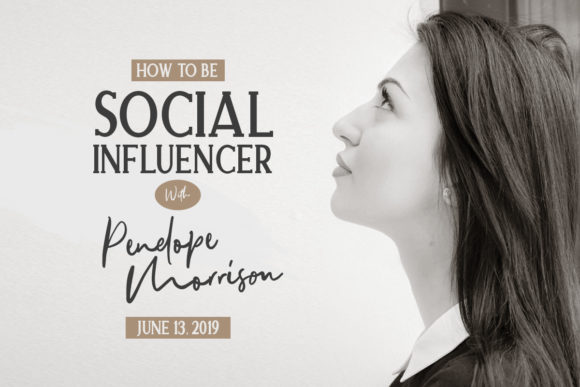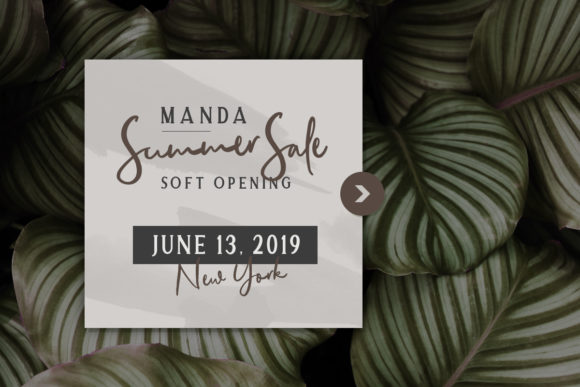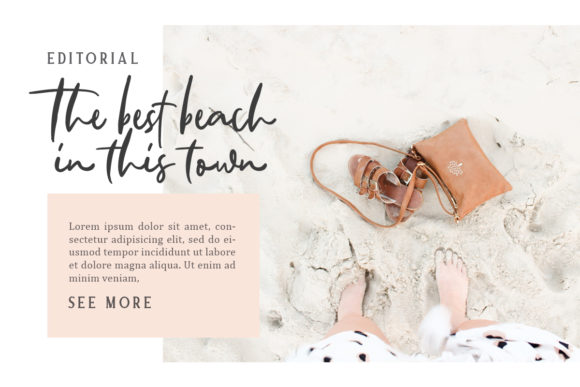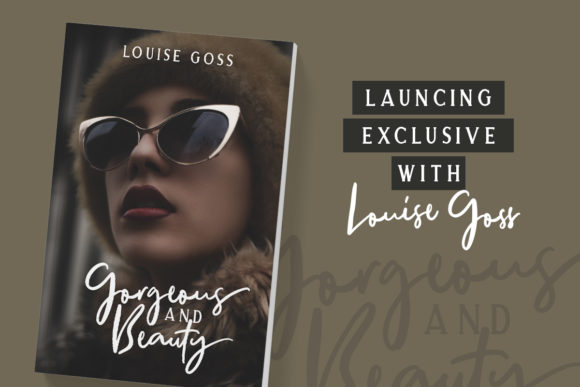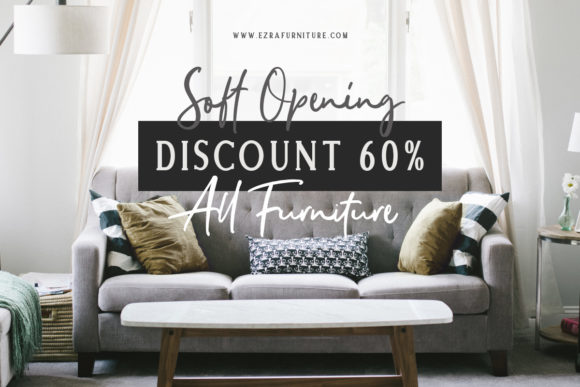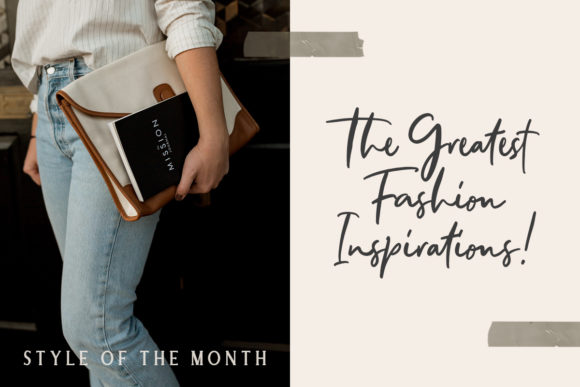
The Perfect Pair: Unleashing the Beauty of the Allison Style Duo Font
There’s something magical about stumbling upon the perfect combination of fonts. You’re working on a project, and suddenly, the words flow effortlessly, the message is conveyed with clarity, and the overall design comes together in harmony. It’s a moment every designer knows and loves. For those seeking this perfect pair, the Allison Style Duo Font is an absolute gem.
This stunning font duo consists of a delicate serif and a free handwritten script, designed to be combined seamlessly. Whether you’re working on a book cover, a wedding invitation, or a marketing brochure, the Allison Style Duo Font offers endless possibilities. Its versatility makes it an invaluable asset for designers, allowing them to create unique and captivating visual experiences.
- Font Family: Allison Style Duo, a unique script font with a touch of elegance and sophistication.
- Unique Characteristics: Features a distinctive, flowing script style with interconnected letterforms, giving it a personal and handwritten feel.
Allison Style Duo Font Review
I recently had the chance to work with the Allison Style Duo Font, and I must say it’s a unique and stylish addition to any design project. ✨ One of the things that stands out about this font is its versatility – it’s perfect for both formal and casual designs, making it a great choice for a wide range of projects.
- ✨ The font is highly customizable, with a range of options for size, color, and spacing that make it easy to get the look you want.
- ✨ The pairing of the two font styles creates a visually appealing contrast that adds depth and interest to any design.
- ✨ The font is highly legible, making it a great choice for body text and other areas where readability is key.
However, there are a few limitations to keep in mind. ⚠️ The font can feel a bit overused in certain contexts, and may not be the best choice for designs that require a lot of subtlety or restraint.
Overall, I think the Allison Style Duo Font is a great addition to any designer’s toolkit. While it may not be perfect for every project, it’s a versatile and stylish option that’s sure to add some flair to your designs. With a little creativity and experimentation, I think this font has the potential to be a real showstopper.
Tips for Getting the Most Out of the Allison Style Duo Font
Use the Allison Style Duo Font for titles, headings, and short paragraphs to add a touch of elegance and sophistication to your designs.
Combine the font with other fonts to create a unique and eye-catching visual identity.
The Allison Style Duo Font is ideal for:
Magazine and newspaper headlines
Alternatives to Allison Style Duo Font for Designers
Playfair Display is a high-end, elegant serif font perfect for luxury brands and high-end publications. It features a classic, vintage feel and is ideal for use in headings and titles.
Comparison to Allison Style Duo Font: While Allison Style Duo Font has a more modern and clean aesthetic, Playfair Display has a more traditional and luxurious feel. Playfair Display is better suited for use in formal and high-end settings, while Allison Style Duo Font is more versatile and can be used in a variety of contexts.
Great Vibes is a beautiful, elegant script font that is perfect for use in invitations, wedding stationery, and other creative projects. It features a flowing, cursive design that is sure to add a touch of sophistication to any design.